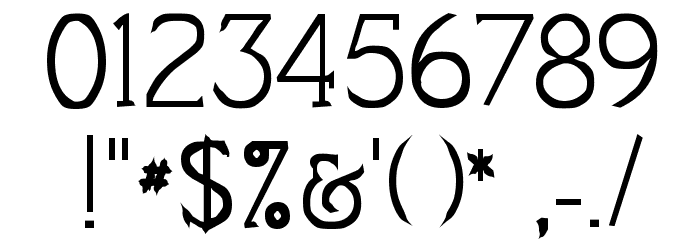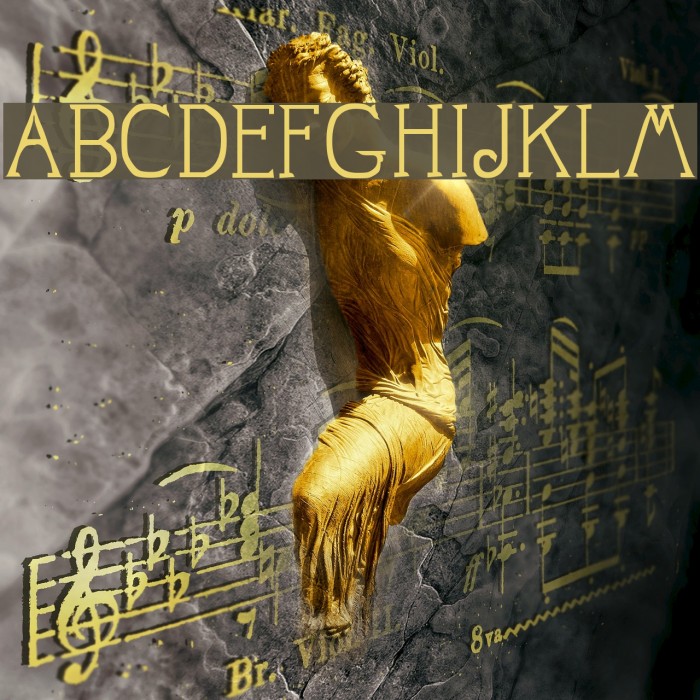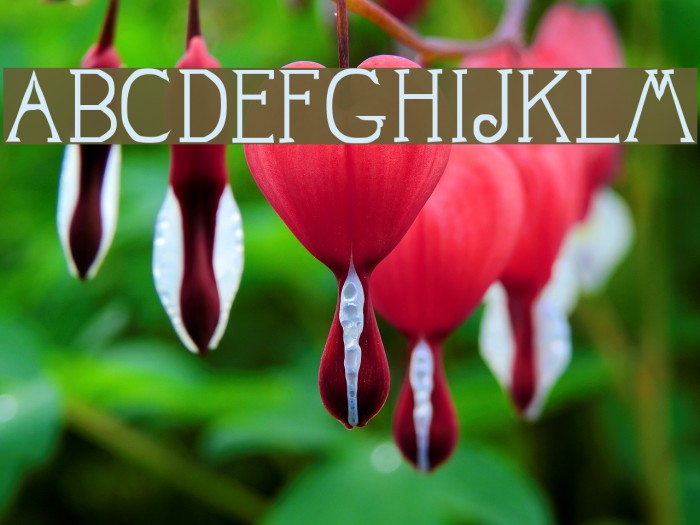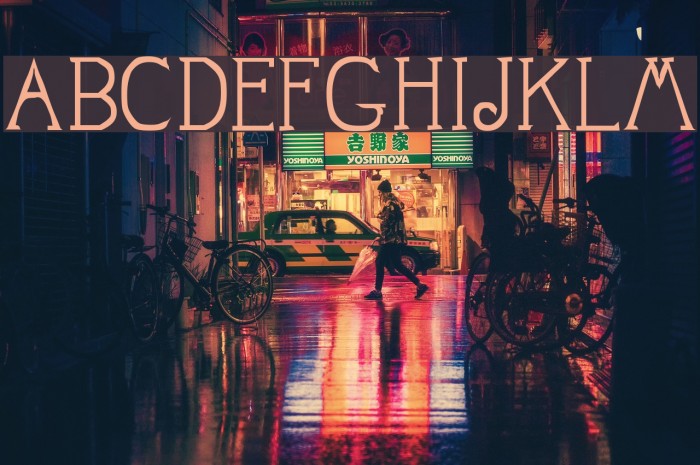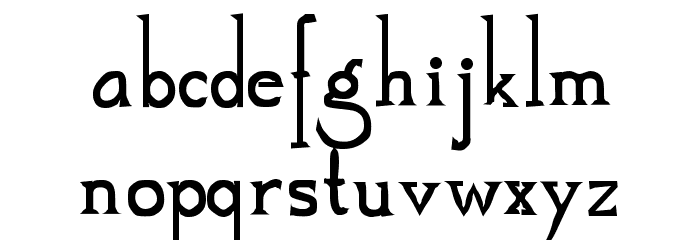
Mestral Font
Mestral Description
This font features a unique blend of modern and classic elements, characterized by its distinct angular serifs and varying stroke widths. The uppercase letters exhibit a strong presence with their tall, narrow forms and sharp edges, while the lowercase letters maintain a more rounded and approachable appearance. The numerals are bold and clear, ensuring readability. Special characters are crafted with the same attention to detail, providing a cohesive look across all glyphs. This font's design is both artistic and functional, making it suitable for a variety of applications.
A modern serif font with angular serifs and varying stroke widths from Uncategorized fonts.
- Proposed Projects: Ideal for branding, editorial design, and packaging where a modern yet classic look is desired.
- Use Case: Headlines, Logos, Editorial design